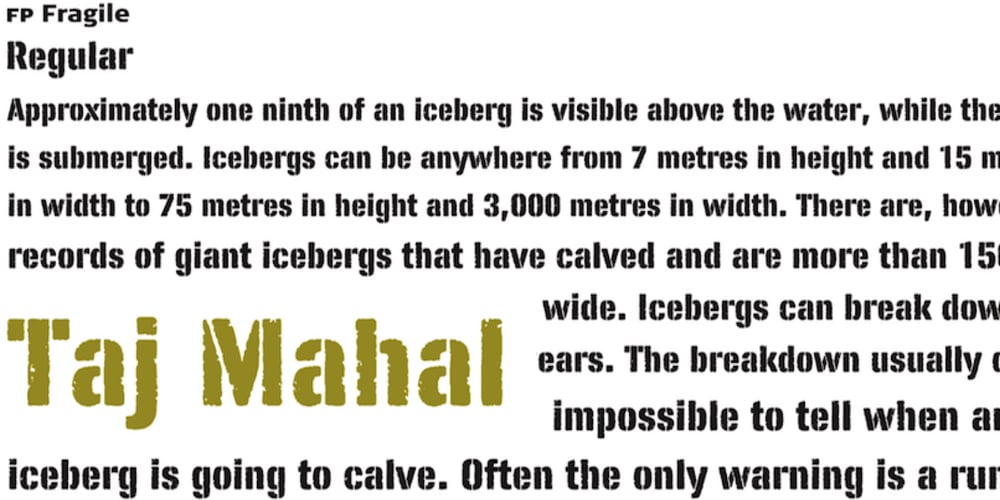
FP Fragile
FP Fragile font
FP Fragile Font Family was designed by Morten Rostgaard Olsen, Ole Berntsen Søndergaard and published by Fontpartners. FP Fragile contains 1 styles and family package options. FP Fragile is a worn & scratched stencil typeface, inspired by packages, package-design and shipments. A font, that hopefully inspires you to travel to distant parts of the globe …